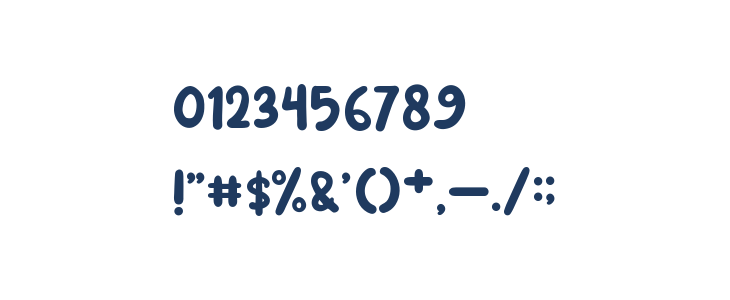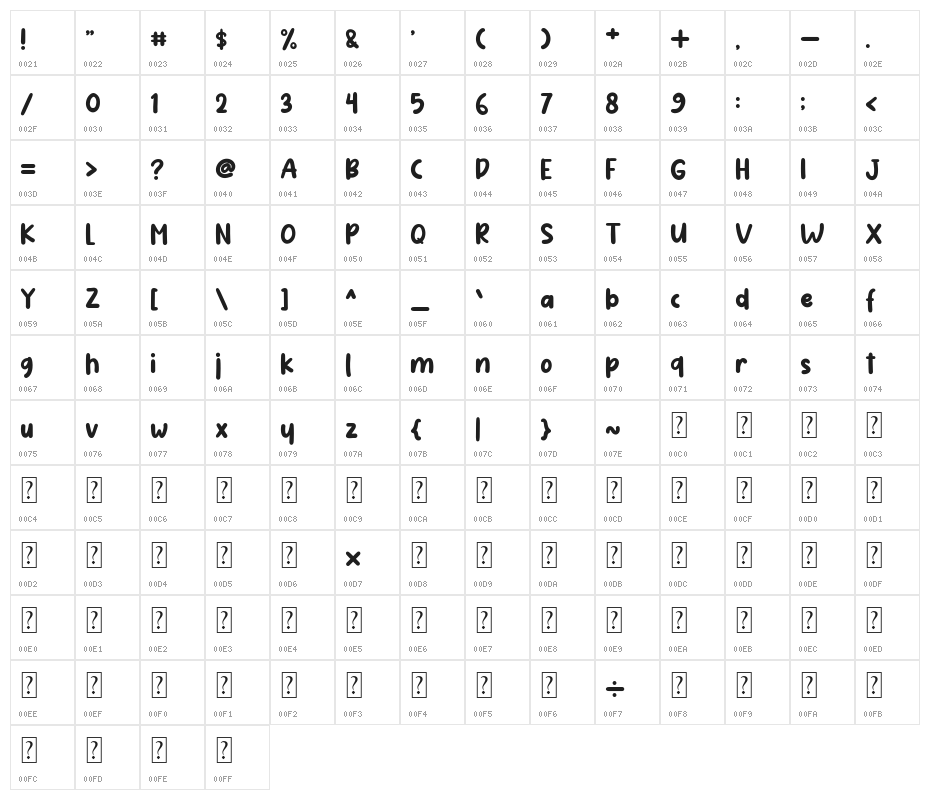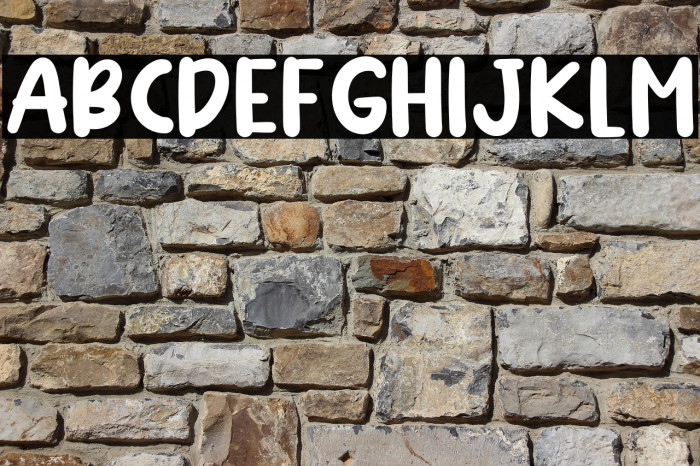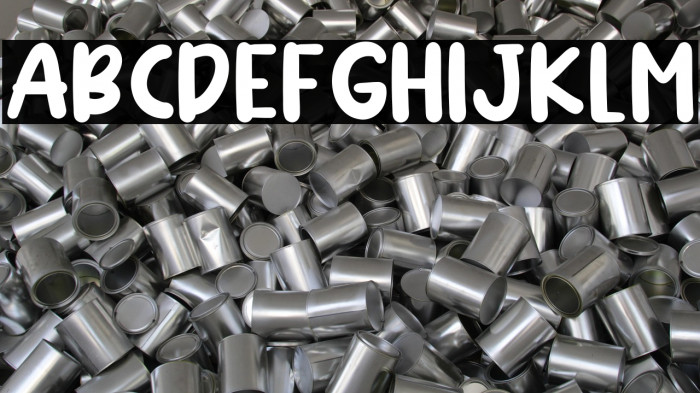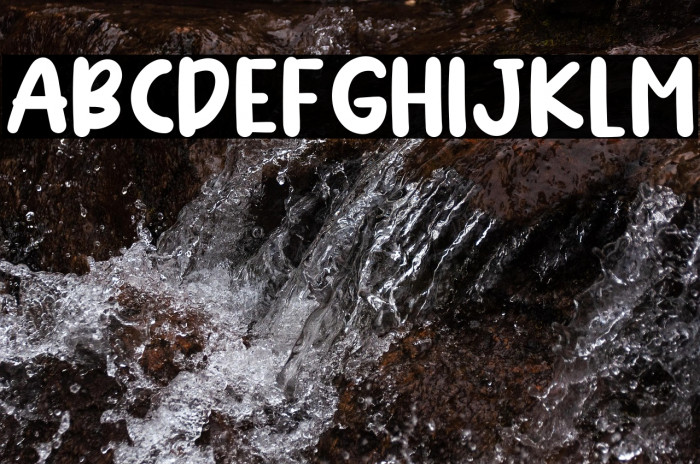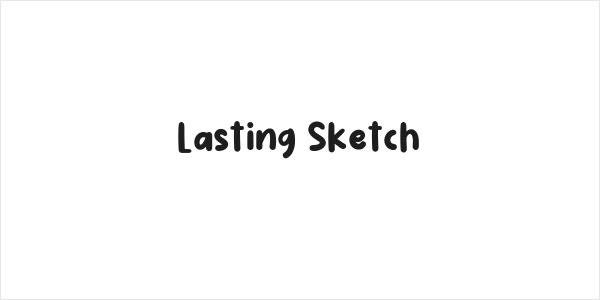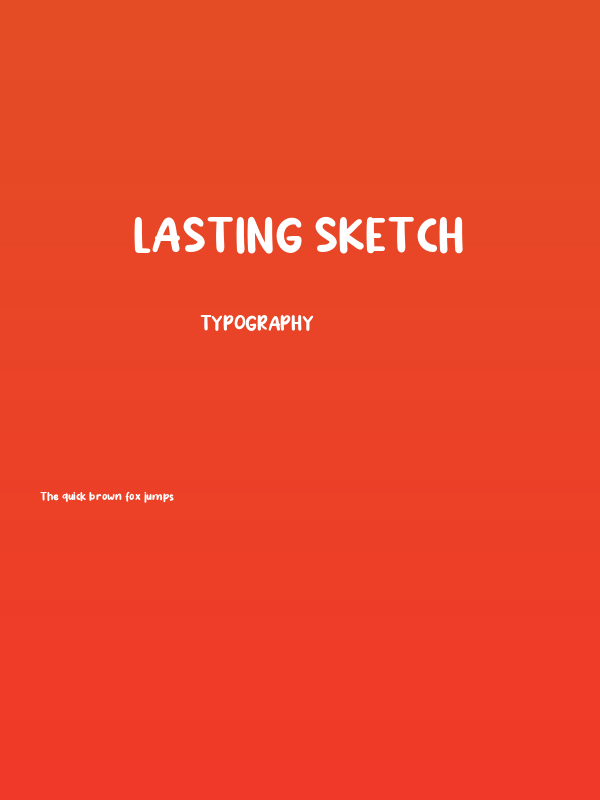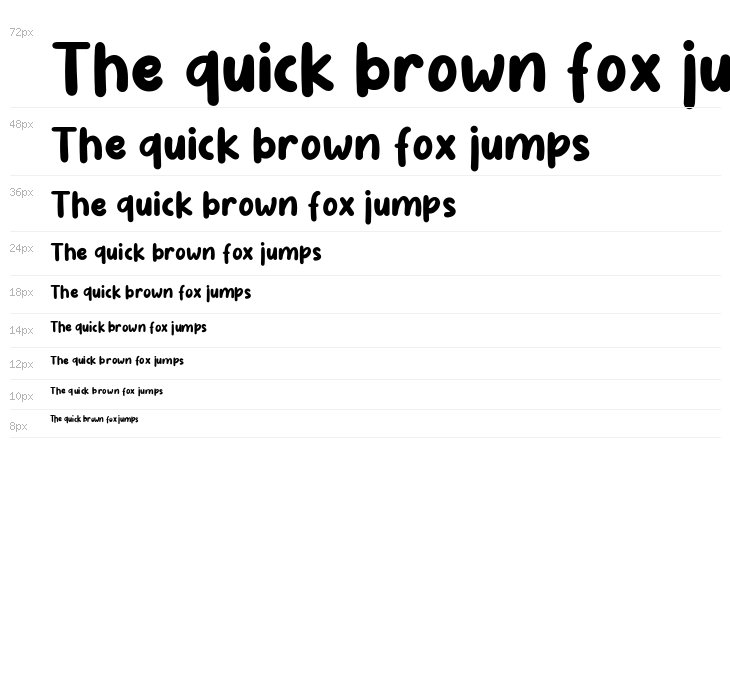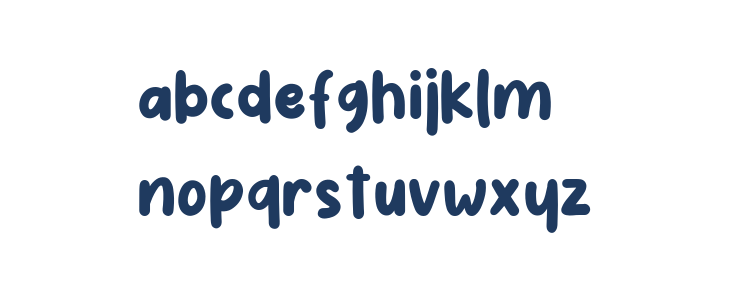
Lasting Sketch Font
Lasting Sketch Description
This playful and bold font features rounded edges and a hand-drawn appearance, giving it a friendly and approachable feel. The characters are uniformly thick, with a consistent stroke width that enhances readability. The uppercase and lowercase letters maintain a cohesive style, while the numerals and special characters are designed to match the overall aesthetic. The font's informal style makes it suitable for creative projects that require a touch of whimsy and personality.
| Proposed Projects | Ideal for children's books, greeting cards, playful branding, and casual invitations. |